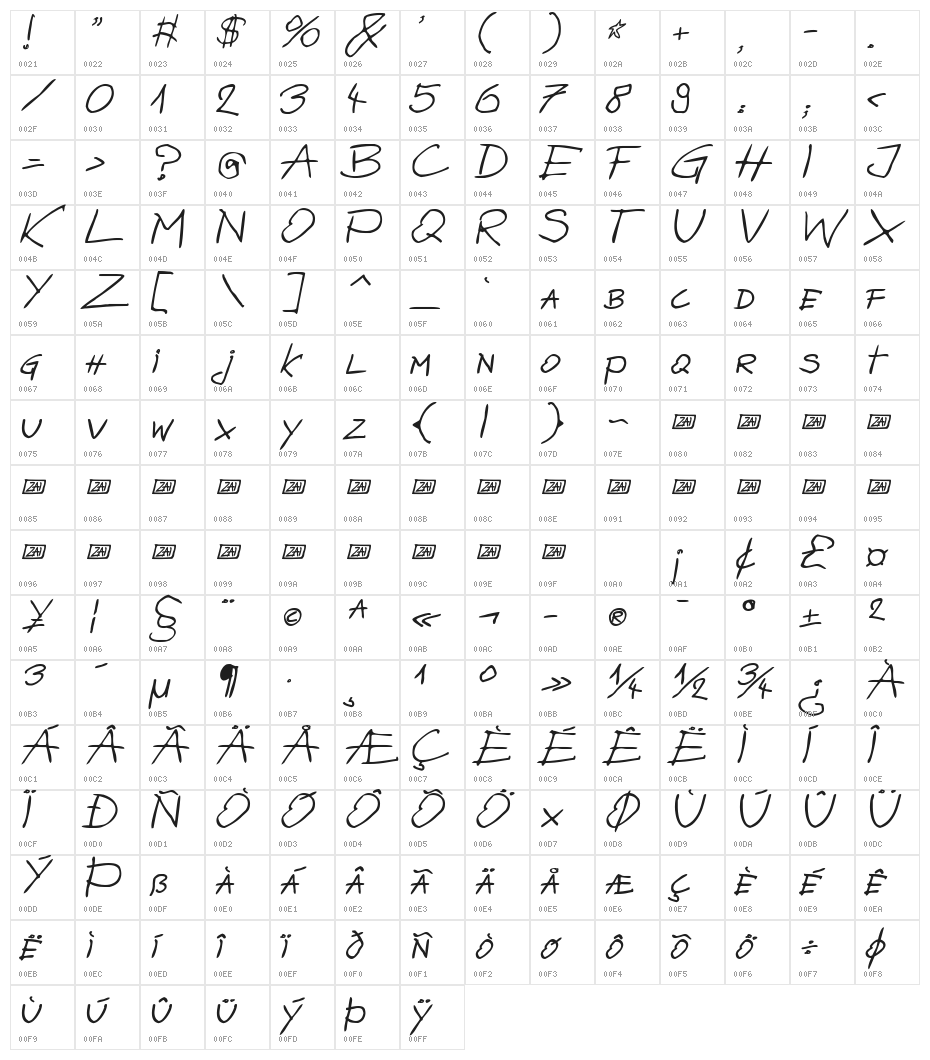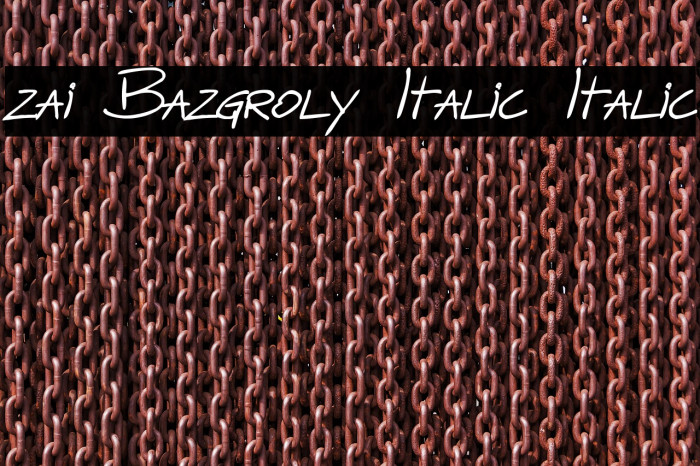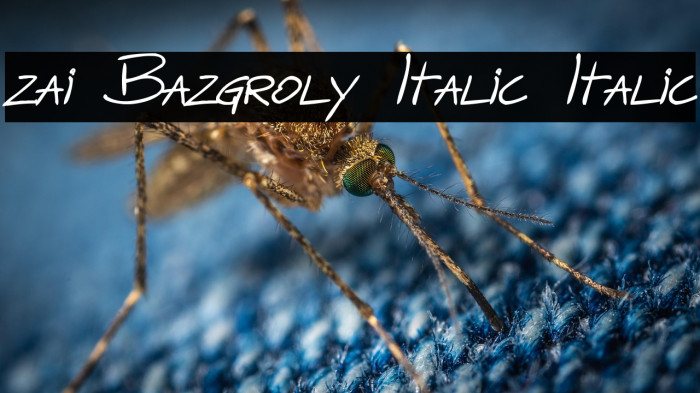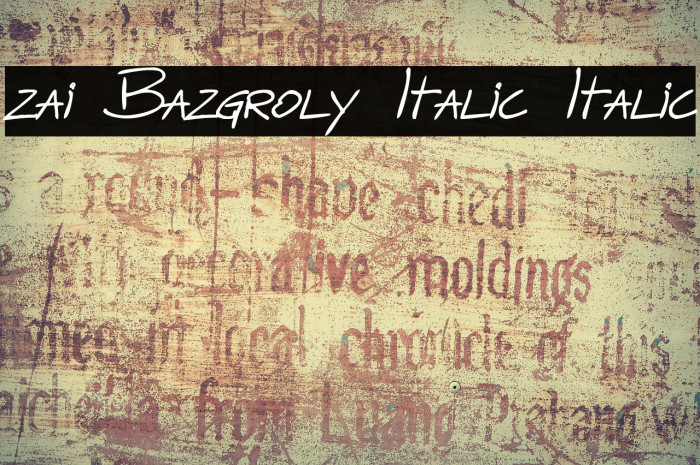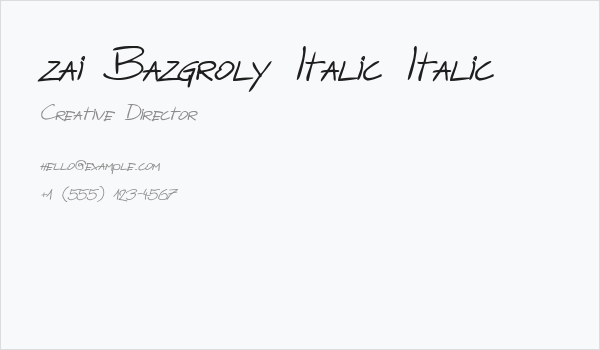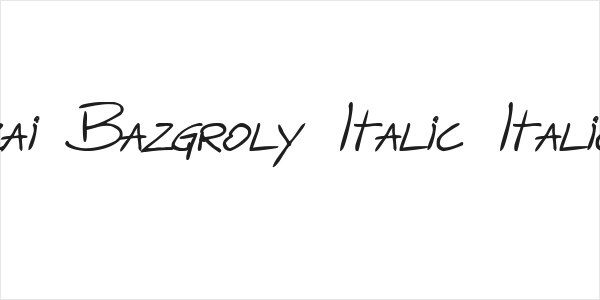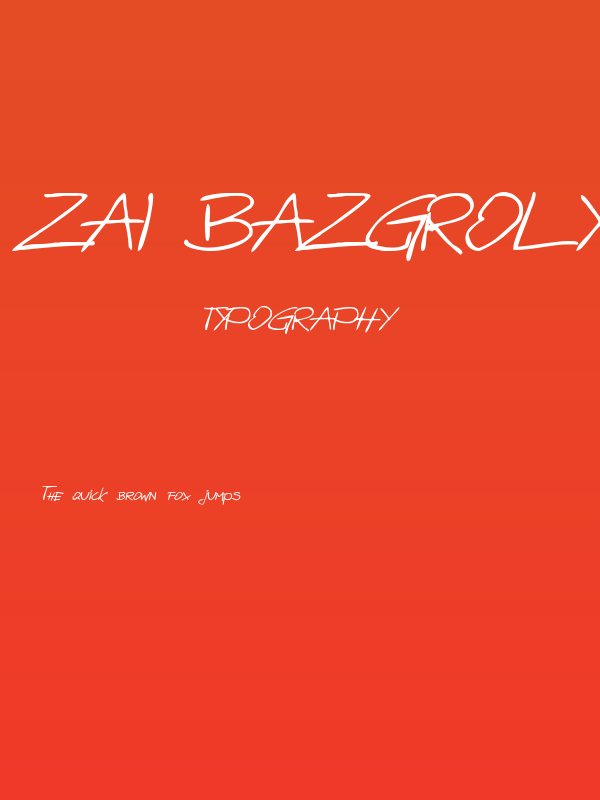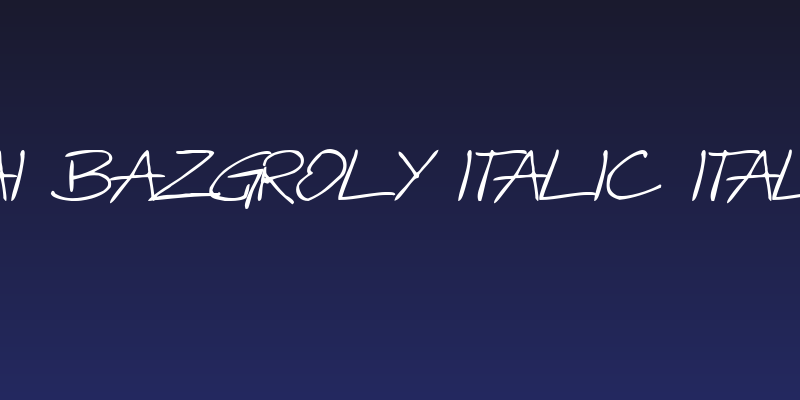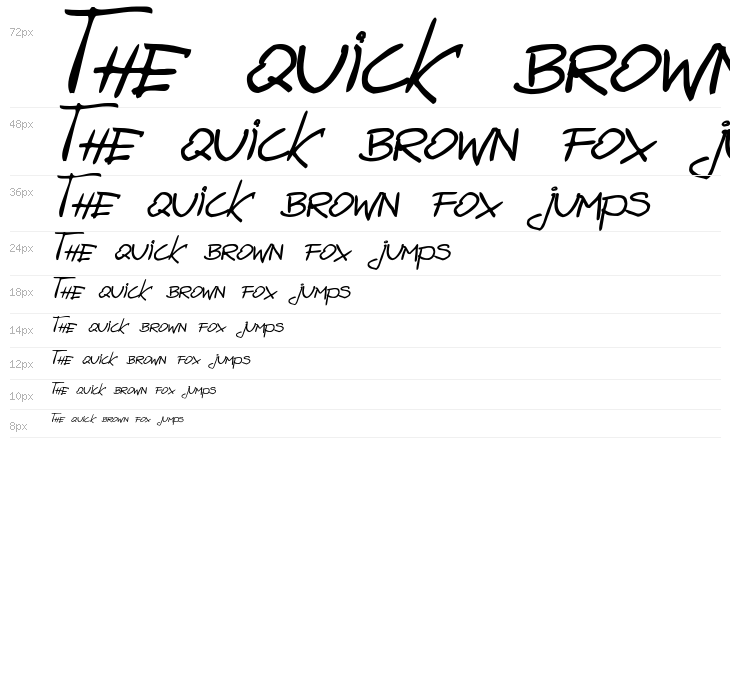
zai Bazgroly Italic Italic Font
zai Bazgroly Italic Italic Description
This font exudes a playful and dynamic energy, characterized by its handwritten style with a distinct slant, giving it an italicized appearance. The letters are crafted with a casual, free-flowing script that mimics the natural movement of handwriting. The strokes vary in thickness, adding a lively and spontaneous feel to the text. The uppercase and lowercase letters maintain a consistent style, with rounded edges and a slightly uneven baseline, enhancing its informal charm. Numbers and special characters are integrated seamlessly, maintaining the same energetic and whimsical style. This font is perfect for projects that require a personal touch or a creative flair.
| Use Case | Headlines, Creative projects, Personal branding |
| Proposed Projects | Ideal for greeting cards, invitations, personal branding, and creative projects that require a personal touch. |